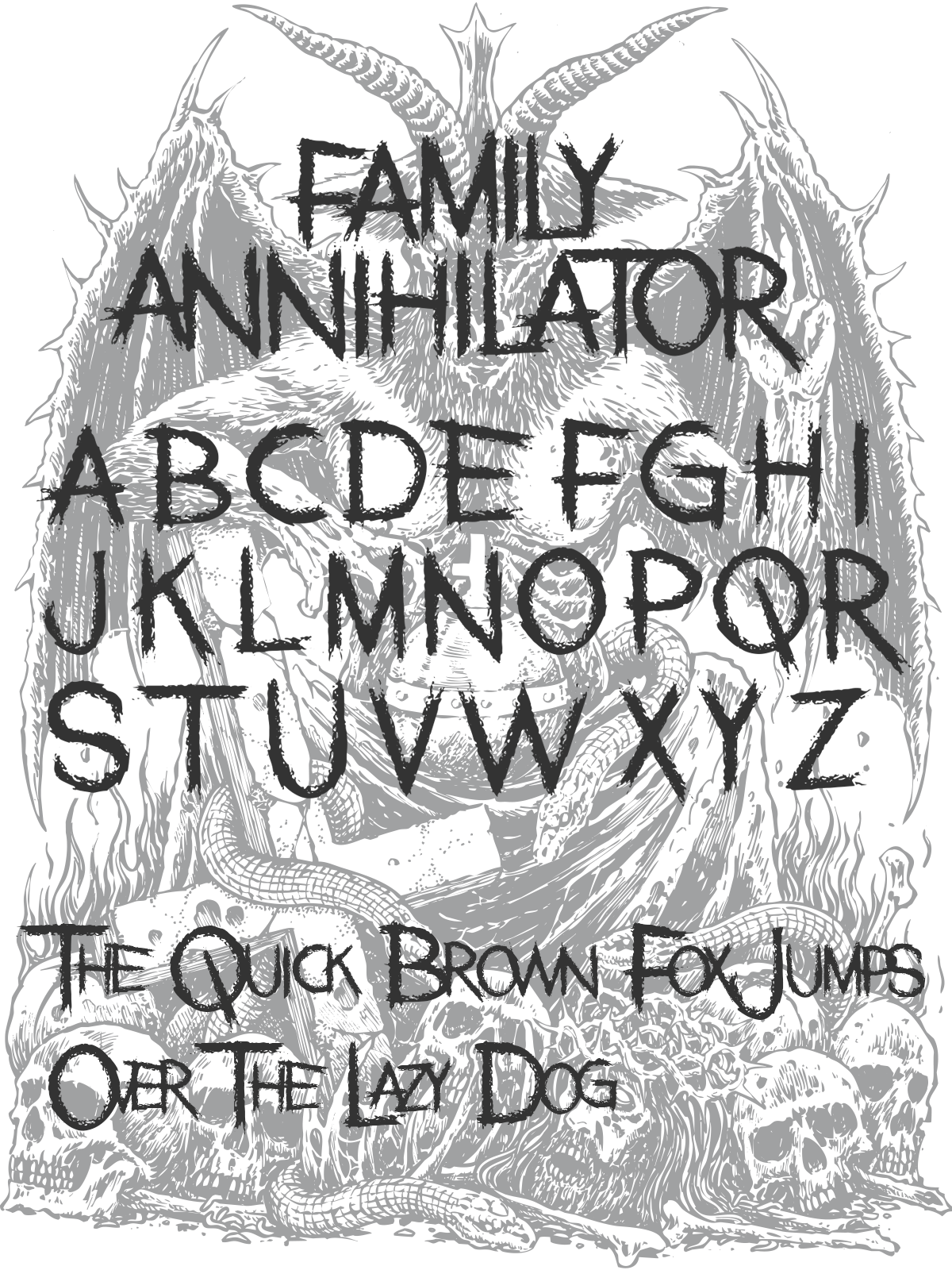
Font Details
Uppercase: Yes
Lowercase: Same as uppercase, decreased by size by 30%
Numbers: No
Punctuation: No
Symbols: No
Accents: No
Theme: Death Metal, Grindcore, Horror